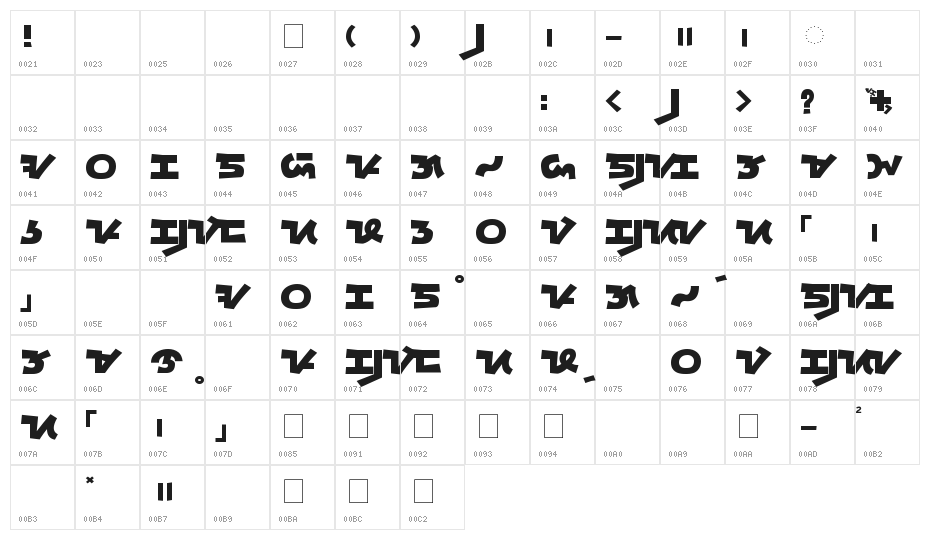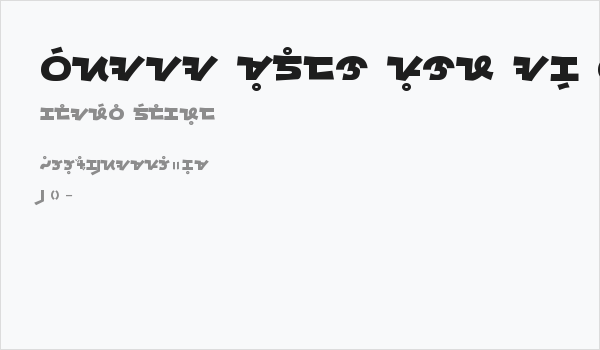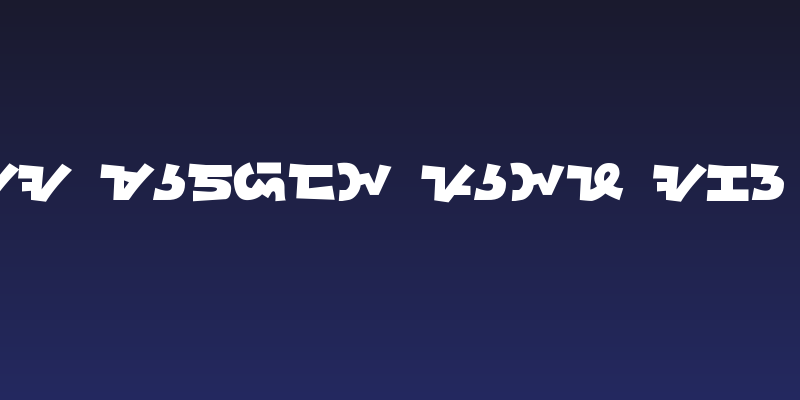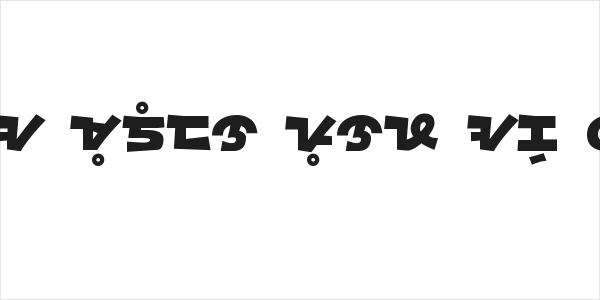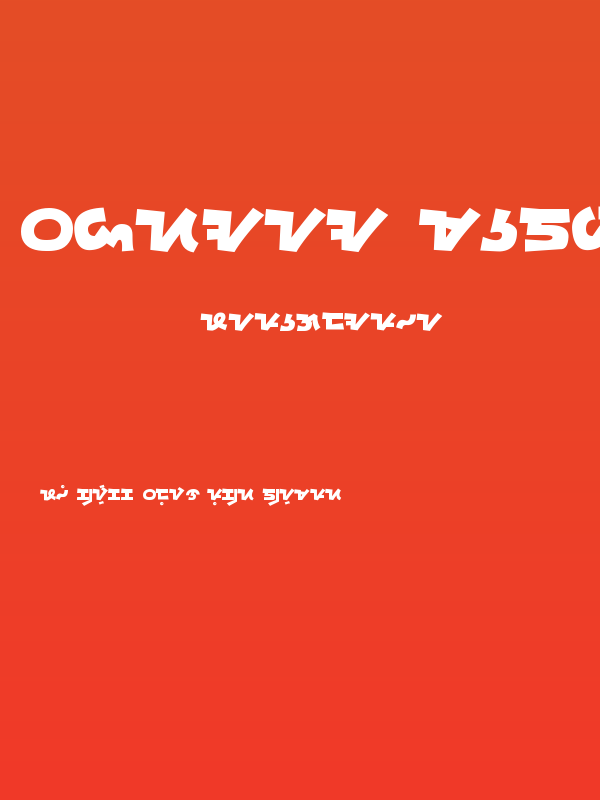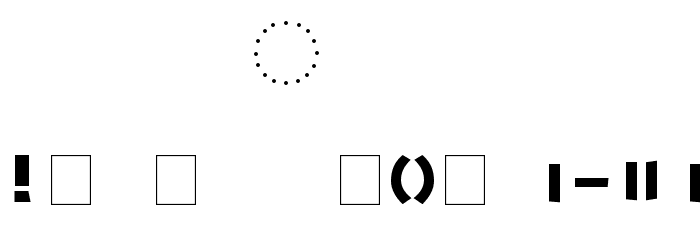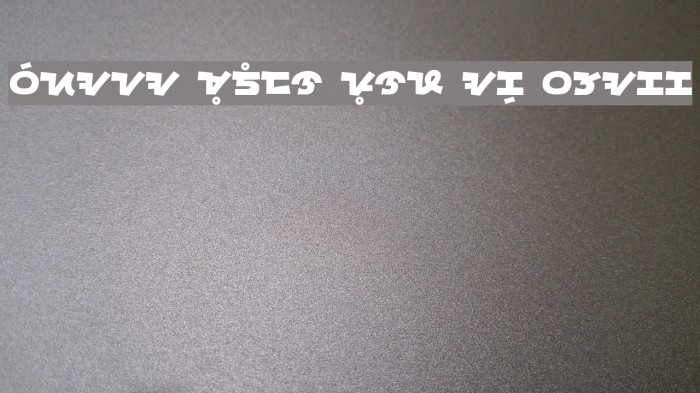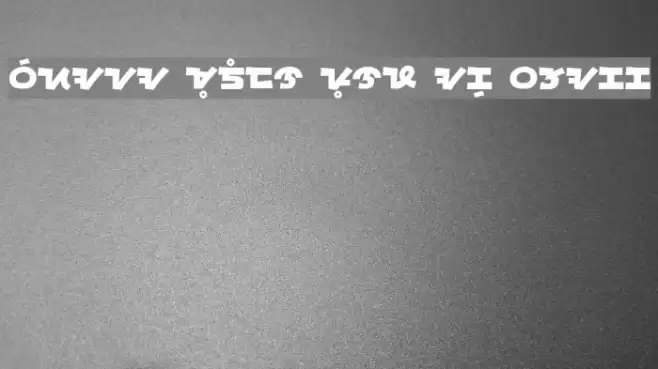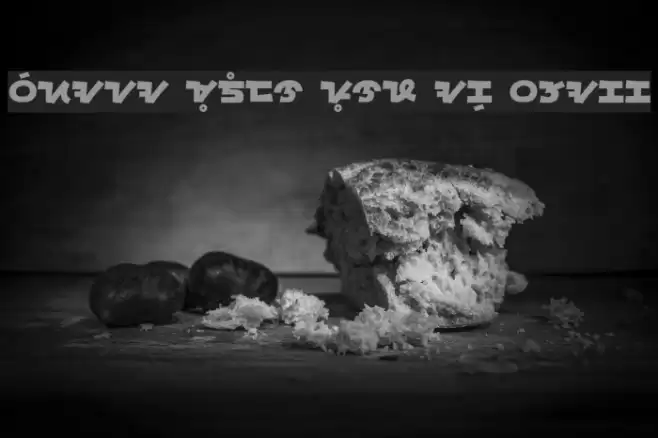
Bisaya Modern Font Aku Black Font
Bisaya Modern Font Aku Black Description
This font features a bold and striking design with angular and geometric shapes. The characters are crafted with sharp edges and a strong presence, making it ideal for attention-grabbing headlines or logos. The uppercase and lowercase letters maintain a consistent style, with a unique flair that adds a modern touch. The numbers and special characters are equally bold, ensuring uniformity across all text elements. The font's design is reminiscent of traditional scripts but with a contemporary twist, making it versatile for various creative projects.